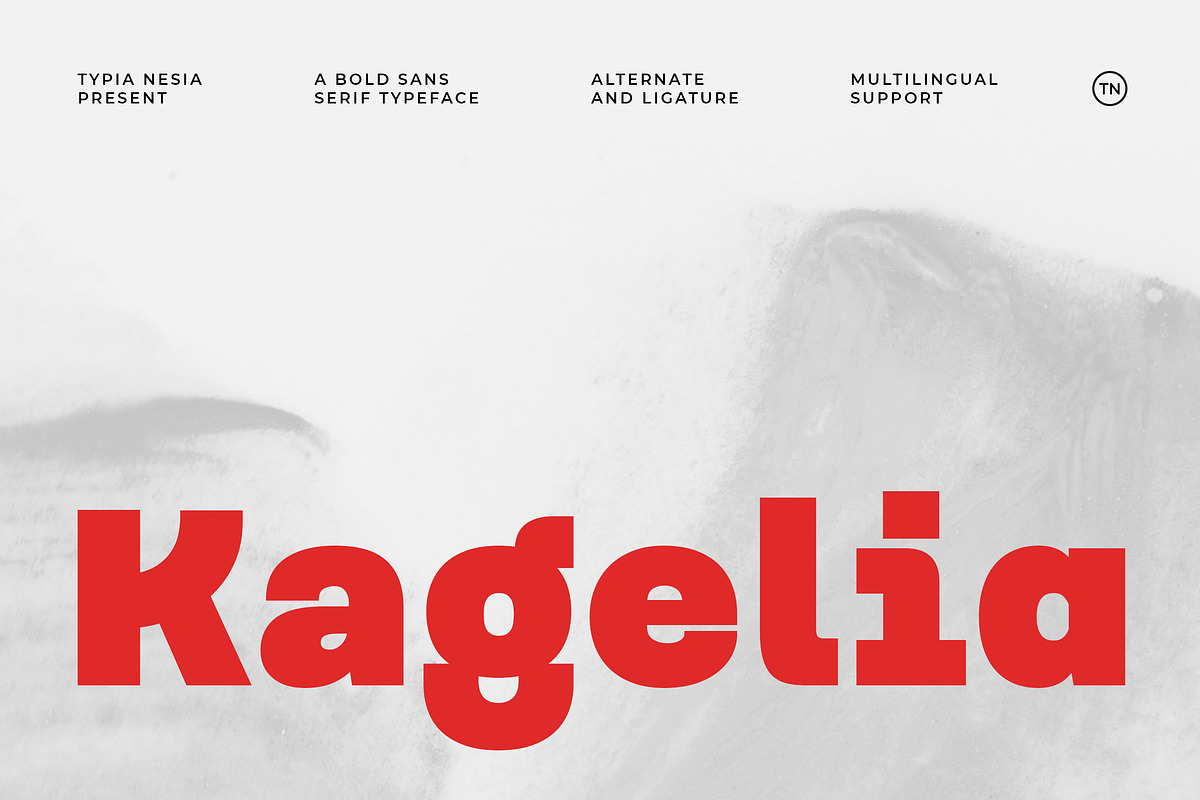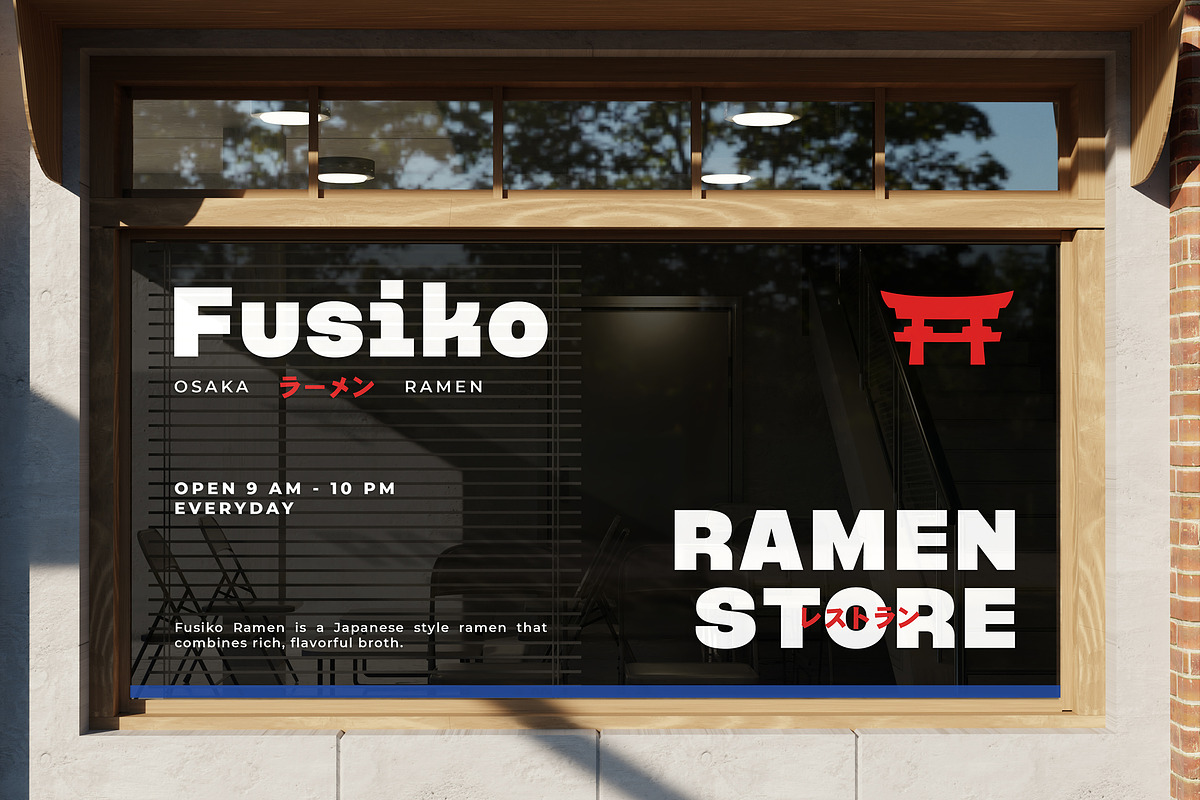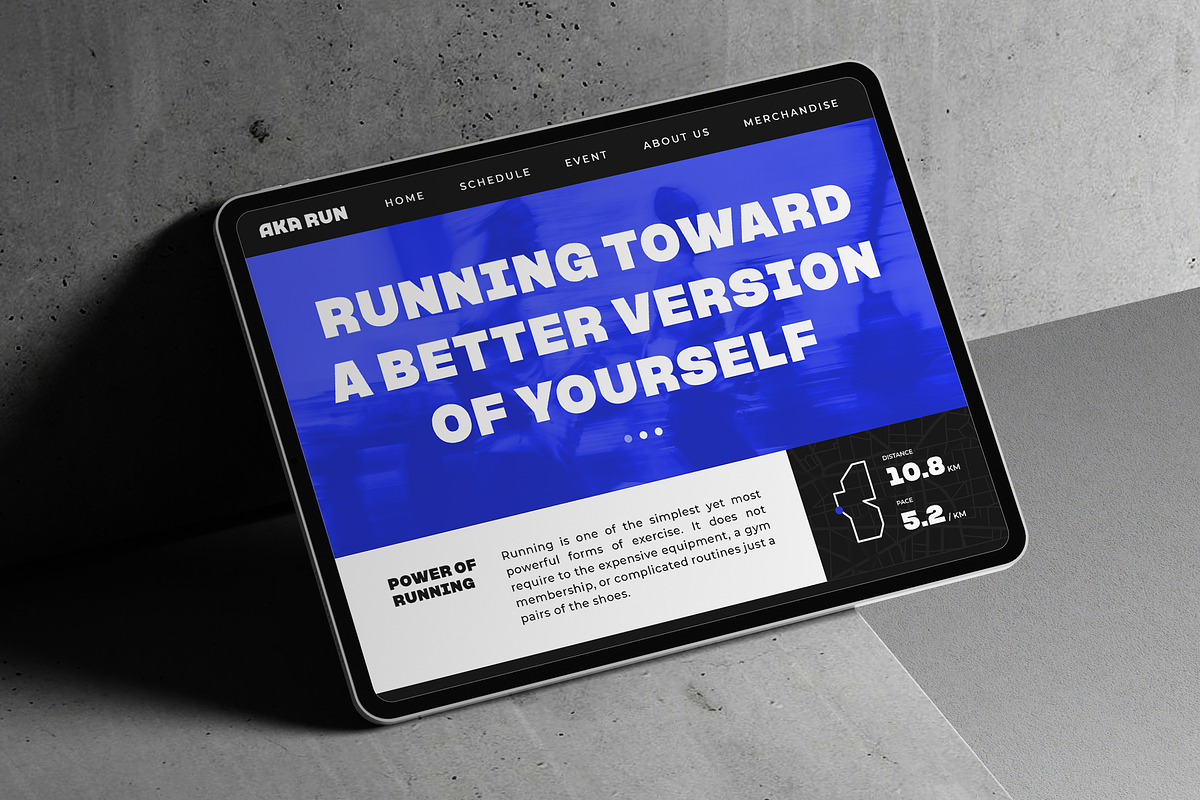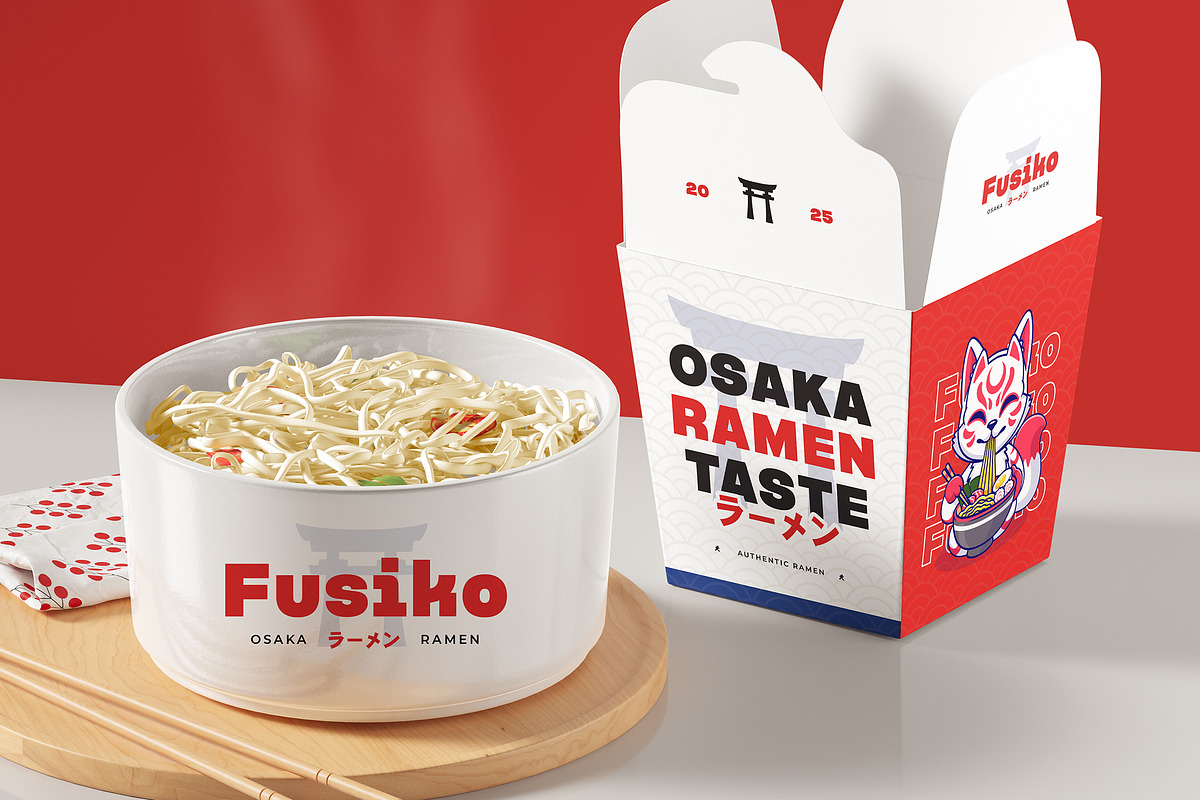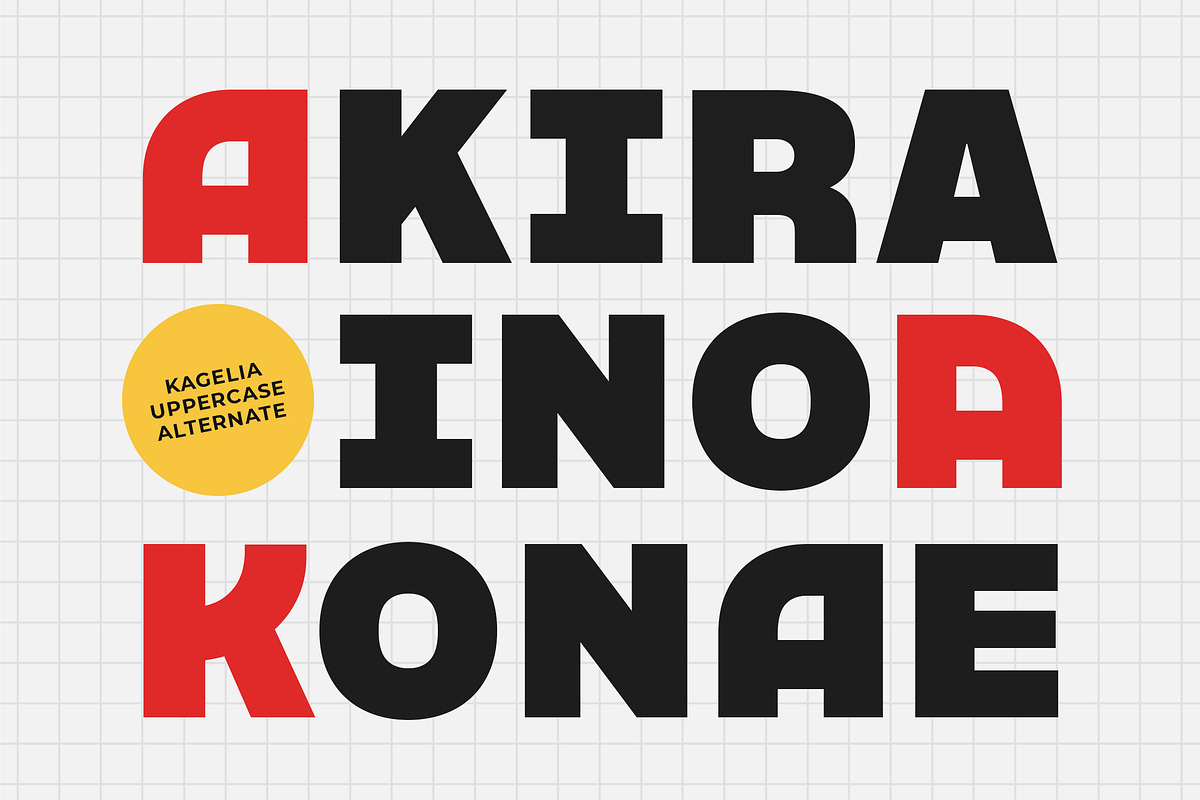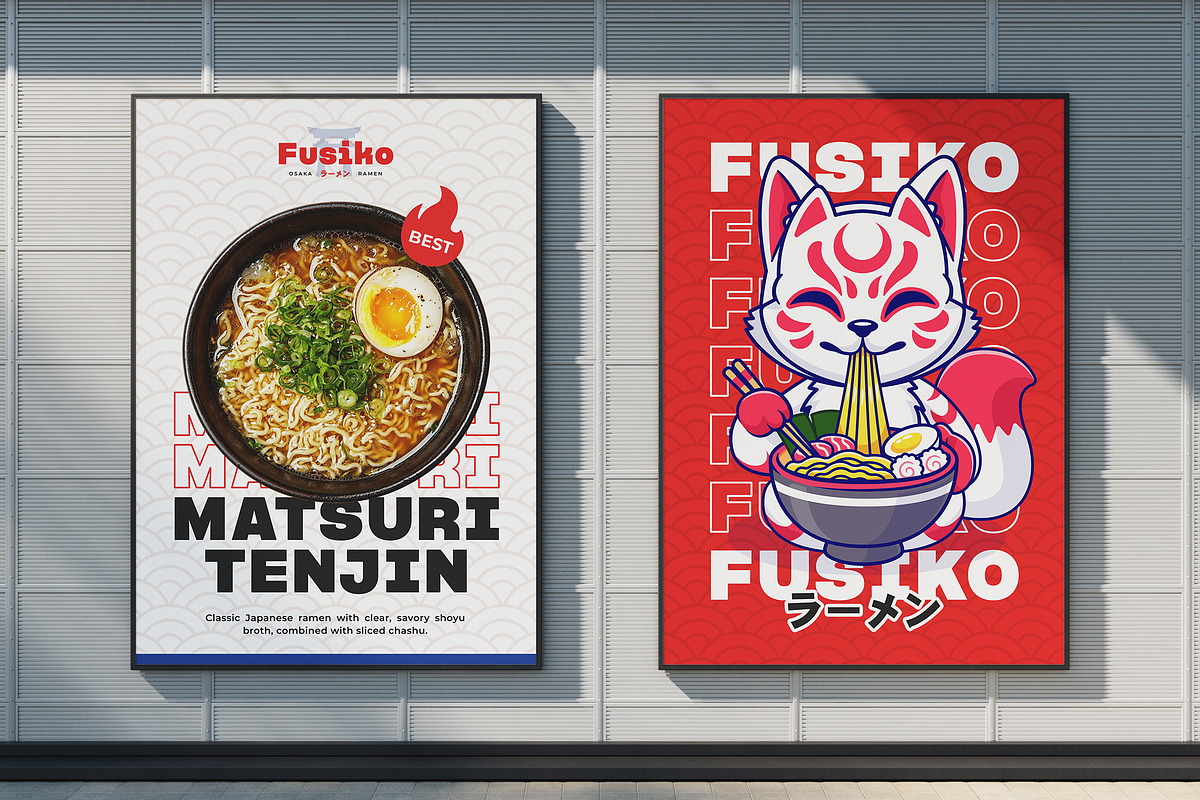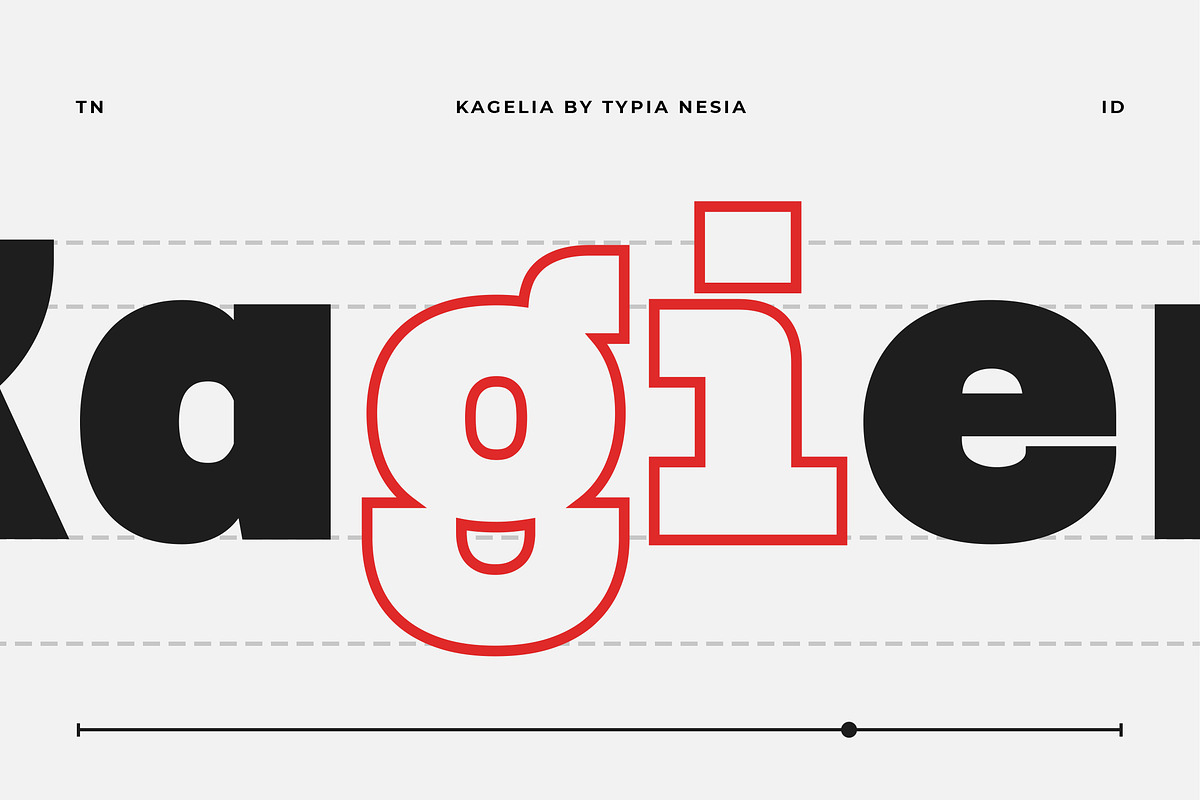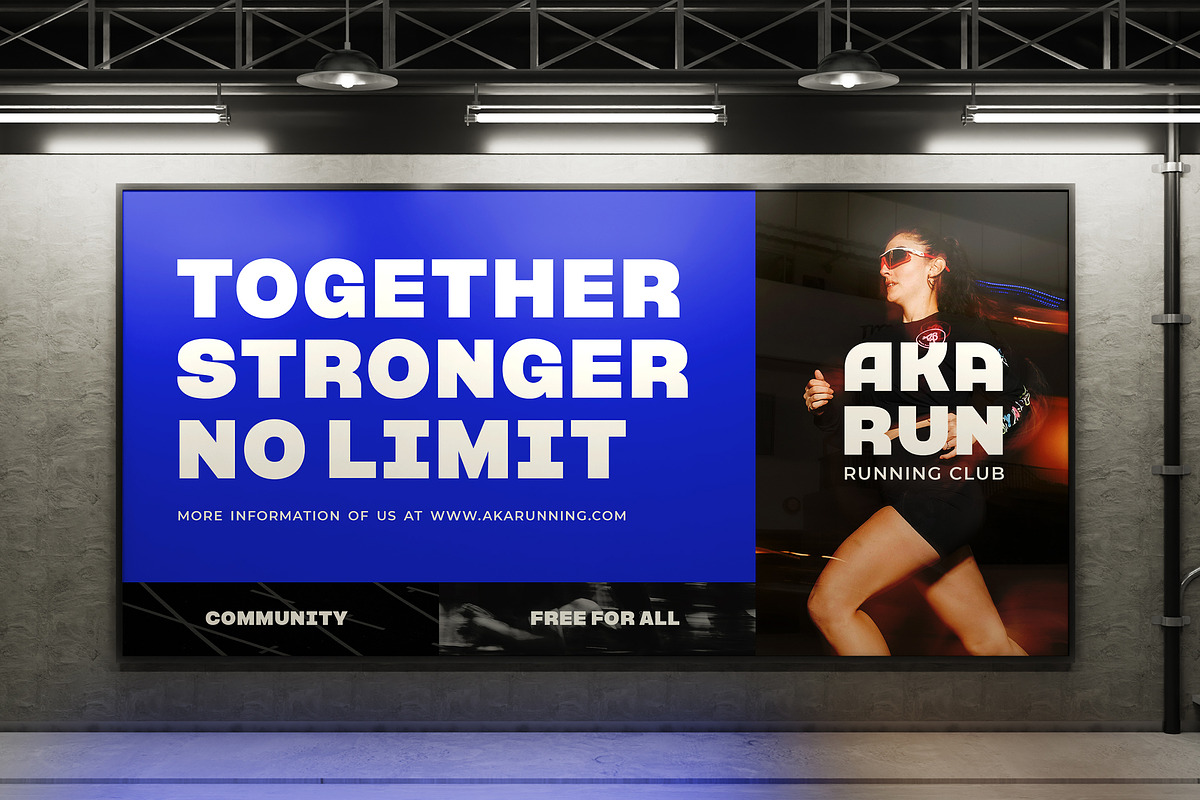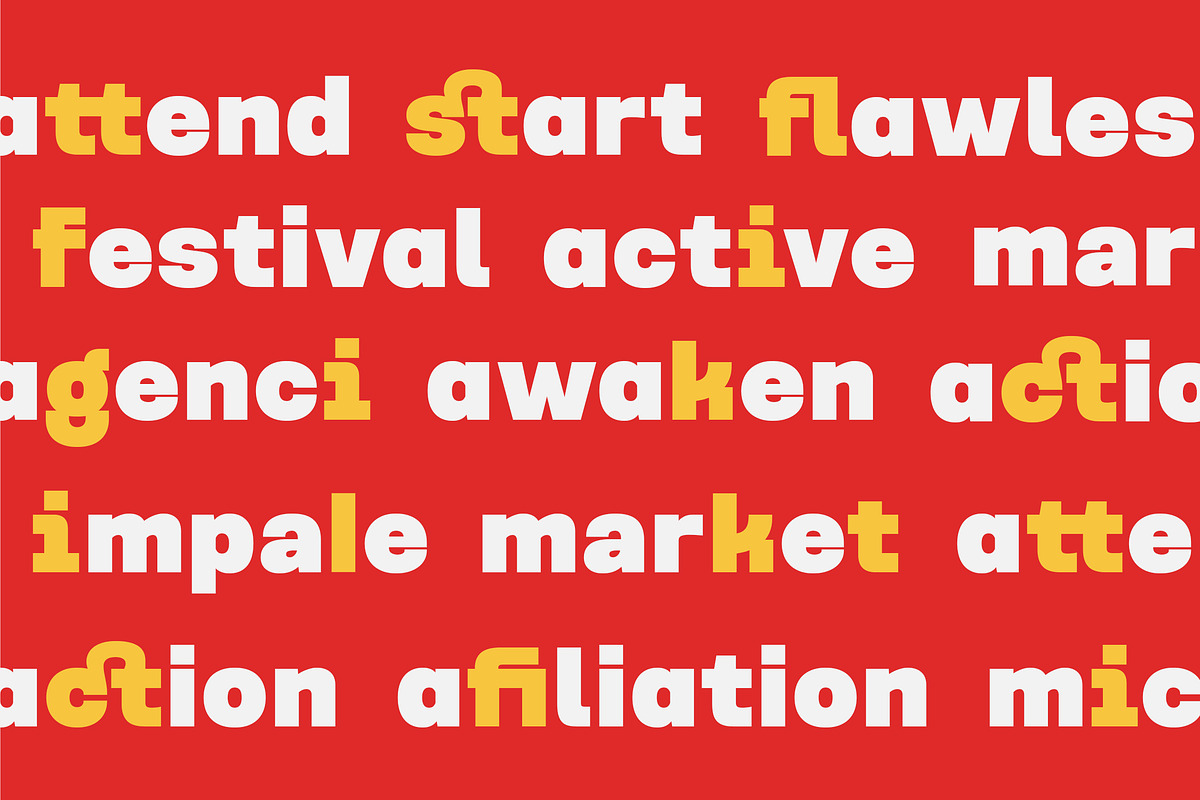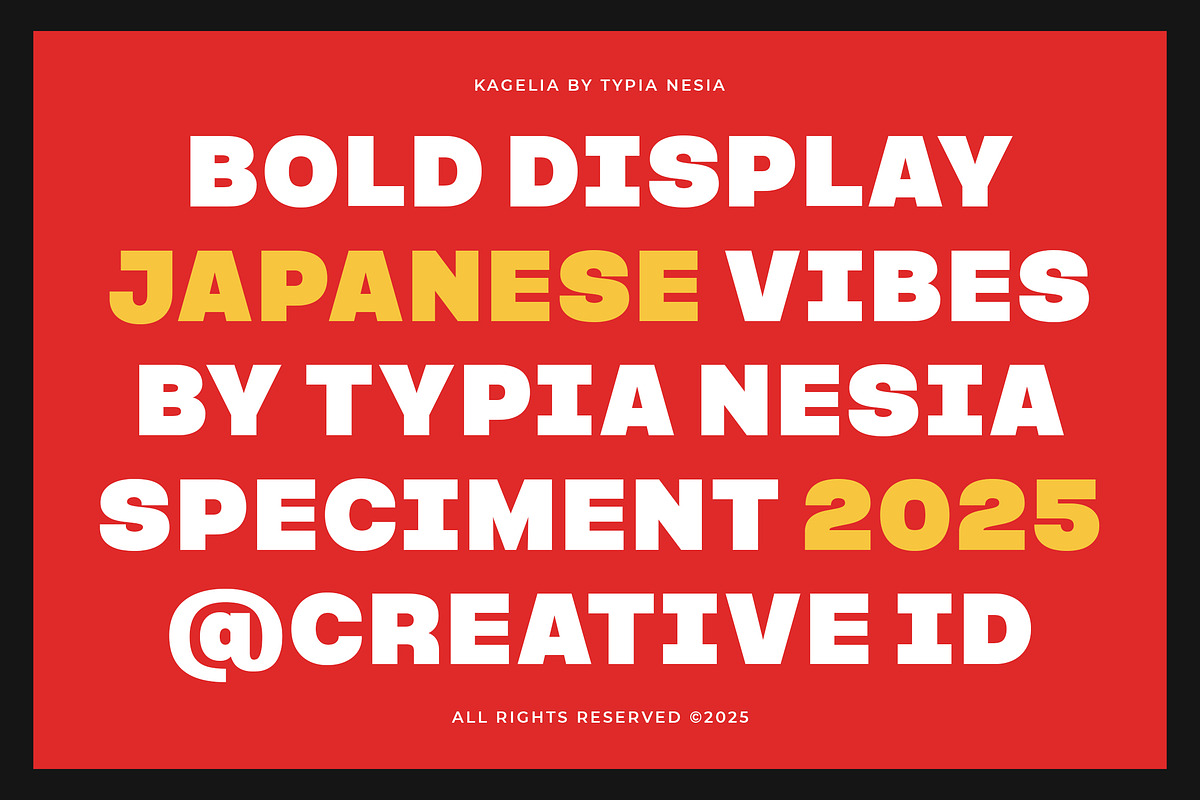
Kagelia - Modern Bold Minimal Sans
Kagelia - Modern Bold Minimal Logo Sans Font - Clean Display Font
Kagelia is a modern, bold, and minimal sans font designed to make a powerful statement. Its strong, geometric letterforms are clean and simple, making it incredibly versatile for a variety of projects. it's an excellent choice for eye-catching headlines, memorable logos, and striking corporate branding. Its versatility makes it suitable for sports, packaging, food, and advertising materials, and it's also a great fit for a new startup or an established business. Its alternate and multilingual support also ensures that your message is clear, no matter the language. Bring your designs to life with Kagelia, the minimal and bold font that delivers maximum impact.